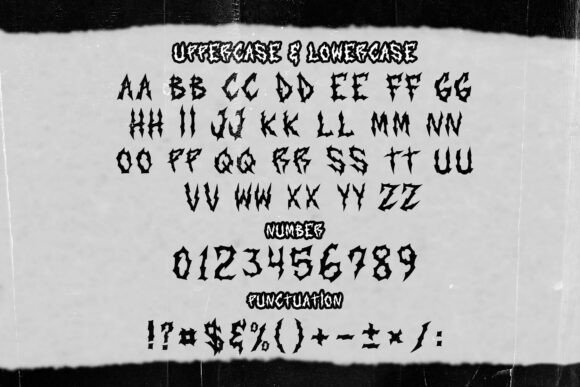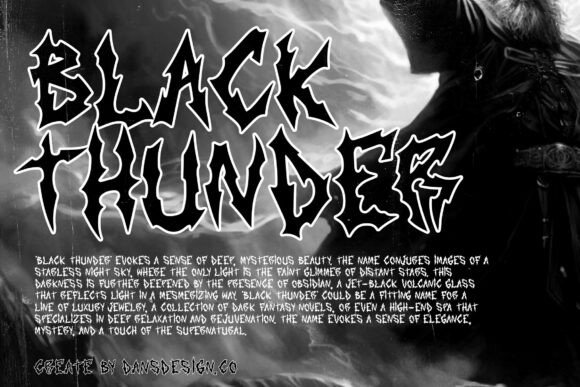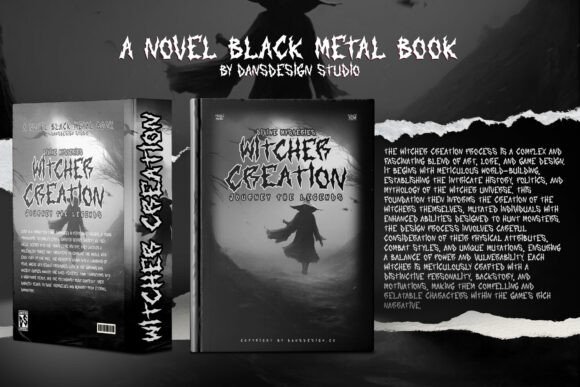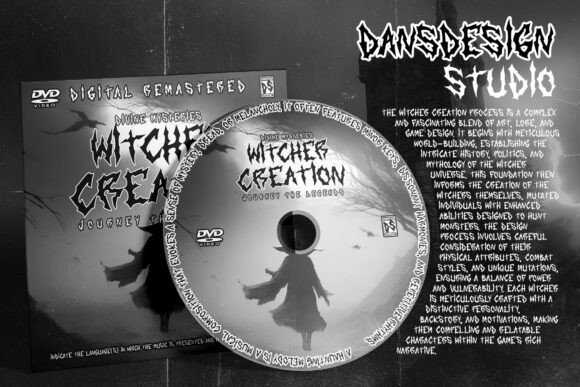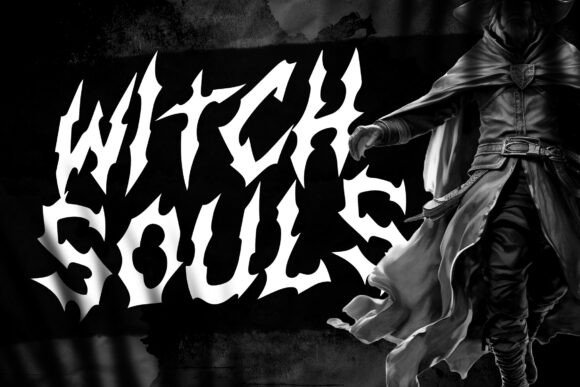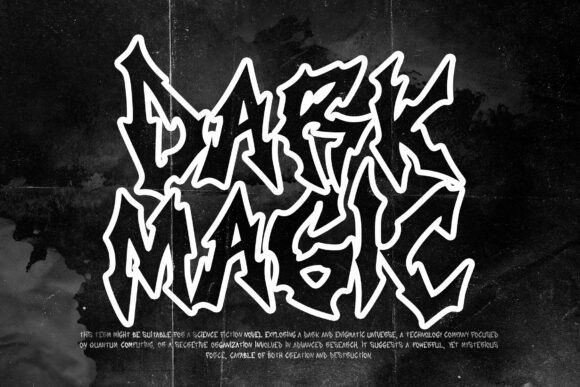
Unleash the Fury: Introducing Blackened Rumbling Font
In the realm of typography, few fonts evoke the same level of intensity and rebellion as Blackened Rumbling. This high-impact blackletter display typeface is specifically designed for those who dare to push the boundaries of creativity and challenge the status quo. Inspired by the raw energy of black and death metal visuals, Blackened Rumbling is the perfect tool for designers and crafters who seek to inject their work with a dose of chaos, darkness, and unbridled attitude.
The Birth of Blackened Rumbling
Blackened Rumbling was forged in the depths of creative rebellion, born from a desire to capture the essence of the extreme. Its design is rooted in the aesthetic of black and death metal, a world where aggression and intensity reign supreme. Every character in this font has been meticulously crafted to scream power and attitude, making it an ideal choice for projects that demand a strong visual statement.
Blackened Rumbling’s design is characterized by sharply cut letterforms and rugged textures that give it a distinctive, battle-hardened look. The font’s blackletter style is unmistakable, with aggressive angles and gothic anatomy that evoke a sense of darkness and rebellion. Unlike some other fonts in its class, Blackened Rumbling does not rely on complex ligatures to make an impact. Instead, every character stands on its own, crafted with striking precision and brutal style to ensure maximum legibility and impact.
- High-Impact Readability: Blackened Rumbling’s bold design ensures that your message will cut through the noise, demanding attention and inspiring action.
- Versatility: This font is perfectly suited for a wide range of applications, from concert posters and album covers to merchandise and digital content.
- Precision Craftsmanship: Every character has been carefully designed to deliver a consistent and powerful aesthetic, ensuring that your work stands out in a crowded marketplace.
- No Complex Ligatures Needed: Blackened Rumbling’s design is straightforward yet impactful, making it easy to use and integrate into your projects.
Applications for Designers and Crafters
Blackened Rumbling’s unique aesthetic makes it an incredibly versatile tool for designers and crafters. Here are just a few examples of how you can harness the power of this font:
- Music and Event Promotion: Create eye-catching posters, flyers, and social media assets for concerts, festivals, and other events that demand an edgy, high-energy vibe.
- Merchandise Design: Elevate your apparel, accessory, and product designs with a bold, attention-grabbing font that speaks to fans of black and death metal.
- Branding and Identity: Use Blackened Rumbling to create a memorable brand identity for businesses, organizations, or projects that want to project a strong, uncompromising image.
- Digital Content: Add a touch of rebellion and intensity to your digital content, including video game titles, movie posters, and social media graphics.
Blackened Rumbling is more than just a font – it’s a statement of intent. For designers and crafters who refuse to play it safe, this high-impact blackletter display typeface offers a powerful tool for challenging the norms and pushing the boundaries of creativity. With its sharply cut letterforms, rugged textures, and precision craftsmanship, Blackened Rumbling is poised to become the go-to choice for anyone seeking to inject their work with a dose of chaos, darkness, and rebellion. Unleash the fury and discover a new level of typographic intensity.